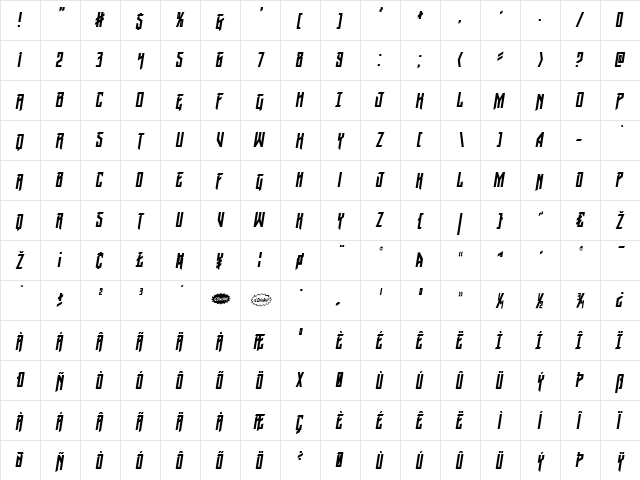
Winter Solstice Condensed Italic Font Preview
Design Context for Winter Solstice Condensed Italic Typeface
Winter Solstice Condensed Italic is a composed and adaptable typeface that performs quietly and consistently across a wide range of design contexts. Its italic angle brings a sense of urgency and motion to the letterforms. The condensed width makes it efficient for tight spaces without sacrificing legibility.
Pro Tip: Try Winter Solstice Condensed Italic for annotation and caption copy alongside an upright companion — the contrast in angle creates a dynamic but ordered typographic system.